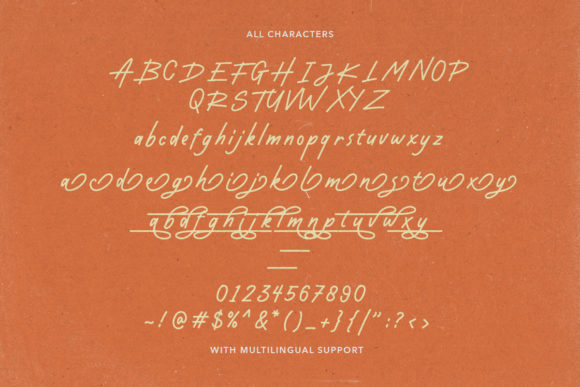
Beauty Script: Capturing Effortless Charm in Your Projects
There’s a particular kind of visual warmth that comes from a well-crafted script font. It feels personal, fluid, and immediately inviting. Beauty Script is a premium font that embodies this feeling perfectly. Its defining feature is a collection of wonderfully light swashes that add a touch of elegance without overwhelming the letterforms. This isn't a heavy, formal calligraphy; it's a modern typography solution designed for clarity and grace. The overall personality is one of relaxed sophistication—think handwritten notes from a stylish friend or the refined signature on a boutique receipt. Its charm lies in its ability to feel both personal and polished, making it a versatile design asset for a wide range of creative professionals.
Where Beauty Script Truly Shines: Practical Applications
Understanding a creative font like Beauty Script is one thing; knowing where to deploy it is where its value is realized. Its delicate, flowing nature makes it ideal for projects where you want to inject personality and a human touch. In logo design, it can establish a brand identity that feels approachable and artisanal for businesses like bakeries, florists, boutique consultancies, or lifestyle brands. For packaging design, it elevates product labels, gift tags, and boxes, suggesting care and quality. Think of a small-batch candle company or a handmade soap business using Beauty Script to convey its handcrafted ethos.
In the digital realm, this script font works beautifully for web design elements that aren't primary body copy. It's excellent for hero section headlines, call-to-action buttons, or special announcement banners that need to stand out with a personal flair. Social media graphics are another natural home. A quote overlay, a promotional sale graphic, or a branded story template using Beauty Script can stop the scroll with its visual appeal. For editorial design, consider using it for pull quotes, chapter titles in a cookbook, or the header of a blog post about artisan crafts. Its role is often as a standout display font, working in concert with more neutral typefaces.
Making It Work: Pairing, Readability, and Professional Use
The most effective use of any script font involves thoughtful pairing. Beauty Script’s light, elegant strokes need a stable partner to ensure overall readability. A clean sans serif font often provides the perfect counterbalance. Using a geometric sans serif for body text and subheadings creates a clear visual hierarchy where the Beauty Script headline becomes a focal point without causing confusion. You could also pair it with a simple, sturdy serif font for a more classic, editorial feel. The key is contrast in weight and structure—let the script do the decorative work while its partner handles the informational heavy lifting.
Before committing, always test the font in context. Does the weight of the swashes hold up at the size you need? Check the readability of the specific letters in your chosen words. Review the full character set; many premium fonts include alternates, ligatures, and multiple stylistic sets. Beauty Script likely includes these, allowing you to customize the look of specific letter combinations for a more natural flow. This level of control is what separates a good project from a great one.
Ultimately, choosing a font like Beauty Script is about aligning visual language with message. It’s not for every project. A law firm or a tech startup might need something more geometric and neutral. But for a brand built on creativity, personal service, or artisanal quality, it can be a powerful tool. It influences perception instantly, suggesting a brand that cares about detail and values aesthetics. When used judiciously, it doesn’t just decorate; it communicates. It helps build recognition and fosters a connection with an audience that appreciates its specific blend of modern elegance and effortless charm.